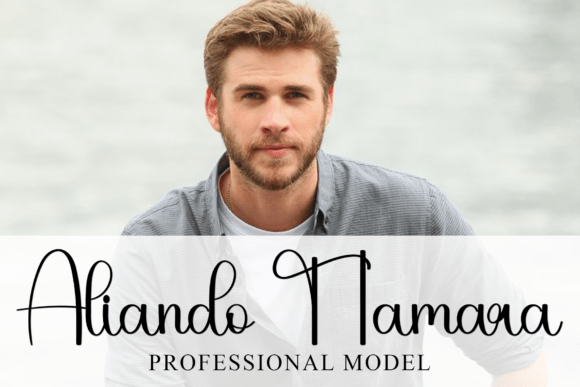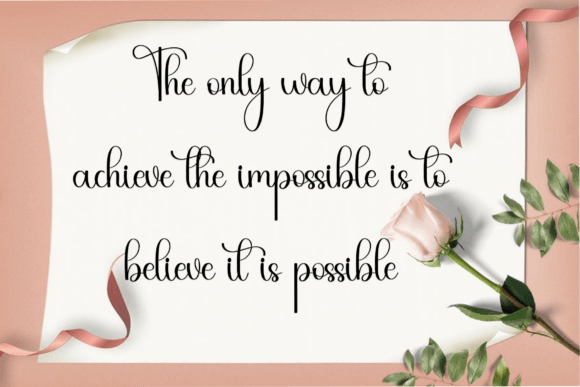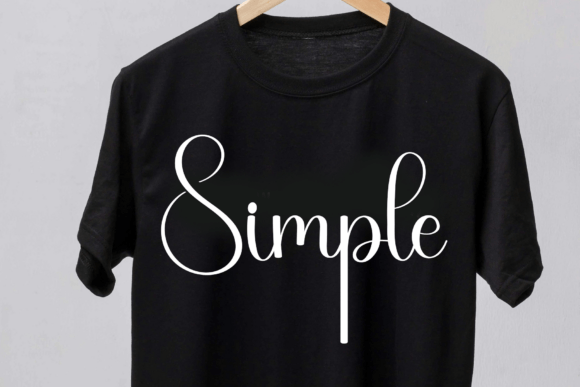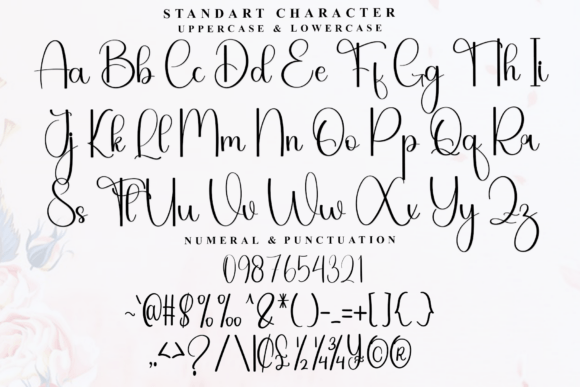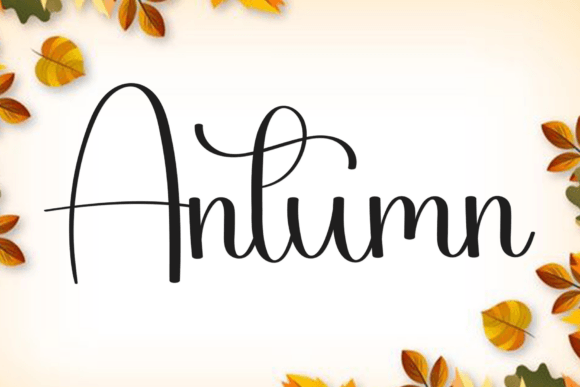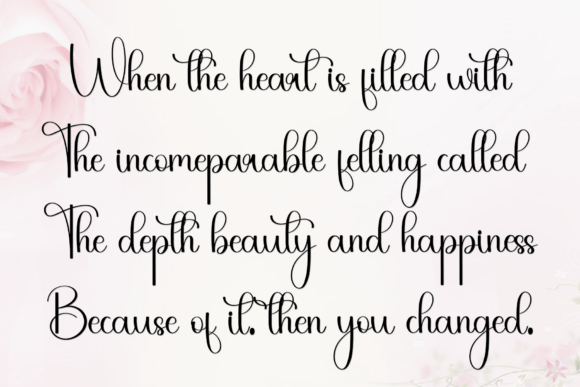
Unleash Your Creativity with the Beautyday Font
You know that moment when you’re brainstorming ideas for a personal project or social media campaign, and you just can’t seem to find the right font to match your vision? That’s where the Beautyday Font comes in – a casual and creative font that exudes warmth and friendliness. Its round, playful strokes create a relaxed and approachable feel, perfect for personal projects, invitations, and social media graphics.
Beautyday Font Key Features
- Font Size: The font family includes 4 weights (Thin, Light, Regular, and Bold) and 2 styles (Italic and Oblique), providing a range of options for designers and typographers.
- Resolution: Beautyday Font is optimized for high-resolution displays, making it suitable for use in digital media, such as websites, mobile apps, and social media platforms.
- Unique Characteristics: The font features a unique blend of modern and vintage elements, with intricate details and ornaments, making it ideal for use in fashion, beauty, and lifestyle branding.
Review of Beautyday Font
First off, I have to say that I was immediately drawn to the Beautyday Font’s ✨ unique, cursive style. It’s perfect for creating a whimsical, feminine touch in designs. The font is highly legible, even at smaller font sizes, making it a great choice for body text. I also appreciate the variety of weights and styles available, which allows for a lot of flexibility in how you choose to use it.
However, I do have a few concerns. ⚠️ One of the main limitations I’ve noticed is that the font can feel a bit overused in certain design contexts. Its cursive style can be a bit too “cute” for more serious or professional designs, and it may not be the best choice for projects that require a more minimalist aesthetic. Additionally, I’ve found that the font can be a bit difficult to pair with other fonts, as its unique style can sometimes clash with more traditional fonts.
Overall, I think the Beautyday Font is a great addition to any designer’s toolkit. While it may not be the best choice for every project, its unique style and versatility make it a great option for designs that require a touch of whimsy and elegance.
- ✨ Unique, cursive style perfect for whimsical designs
- ✨ Highly legible, even at smaller font sizes
- ✨ Variety of weights and styles available
- ⚠️ Can feel overused in certain design contexts
- ⚠️ Can be difficult to pair with other fonts
Beautyday Font Practical Application Guide
Getting the Most Out of Beautyday Font
For the best results, use Beautyday Font in conjunction with high-quality images and graphics. This font is ideal for creative projects, such as invitations, posters, and social media graphics. Experiment with different font sizes, colors, and arrangements to create visually appealing designs.
Beautyday Font is suitable for a variety of creative projects, including:
– Invitations and event graphics
– Posters and flyers
– Branding and logo designs
– Wedding and party decorations
Alternatives to Beautyday Font for Designers
Great Vibes is a beautiful, elegant script font ideal for creating a sophisticated and luxurious feel in designs. It’s perfect for use in logos, branding, and invitations where a touch of elegance is desired. Compared to Beautyday Font, Great Vibes has a more refined and classic look, making it suitable for formal occasions.
Q: Are the Beautyday Font glyphs customizable?
The Beautyday Font glyphs are designed to be highly customizable. The font includes a wide range of OpenType features, such as ligatures, swashes, and ornaments, which can be accessed and customized using software applications that support OpenType features, such as Adobe Illustrator or InDesign.